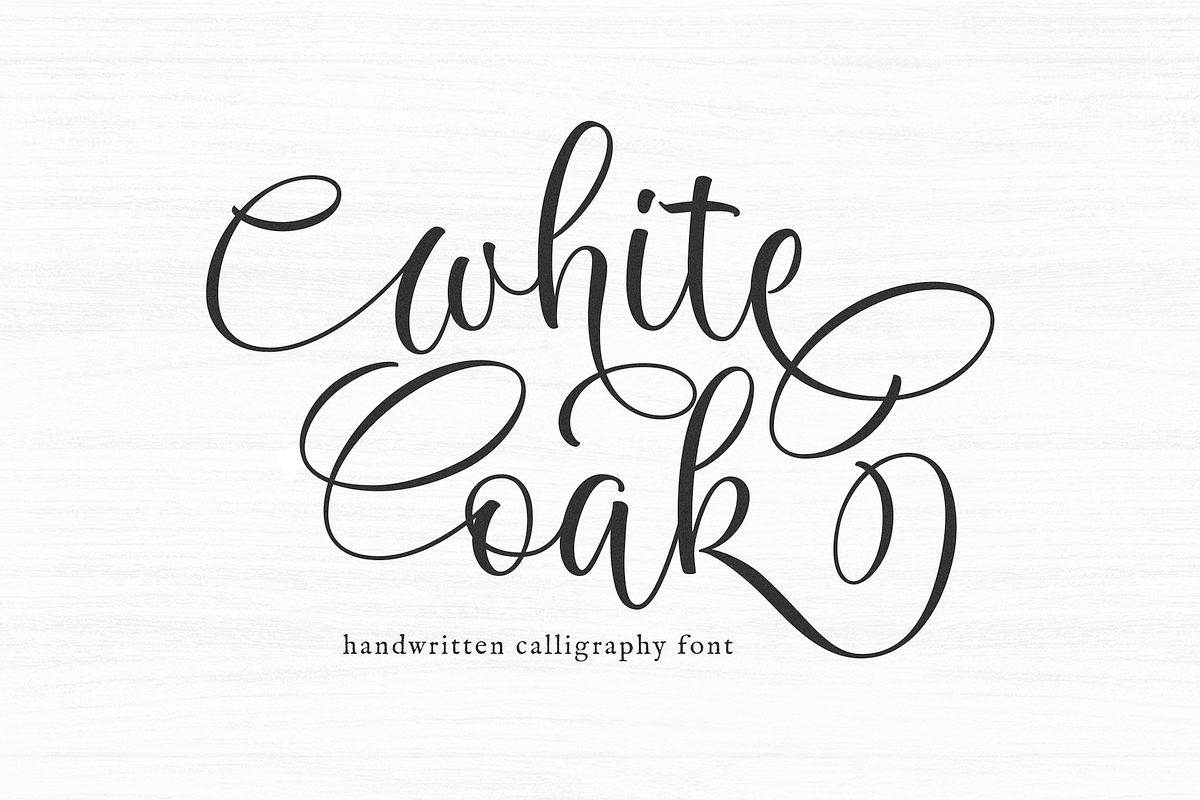
White Oak | Script Font with Swashes Free Download
White Oak | Script Font with Swashes Free Download is an elegant, flowing script typeface with beautiful swashes and curves that add a sophisticated and whimsical touch to your designs. Ideal for branding, wedding invitations, logos, social media graphics, and more, White Oak offers both a personal and professional flair, making it perfect for upscale projects and creative endeavors.
With its graceful letterforms and artistic swashes, this font brings a sense of charm and elegance to any design, ensuring your typography stands out in a refined and stylish way.